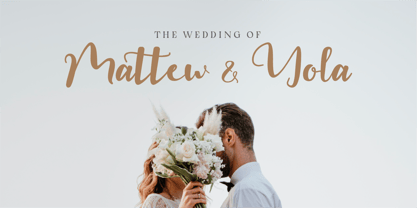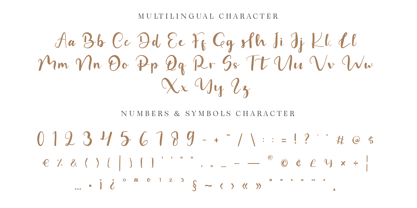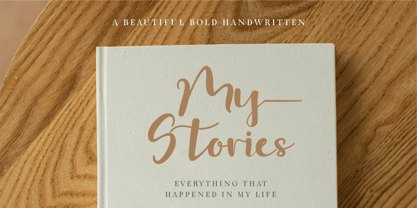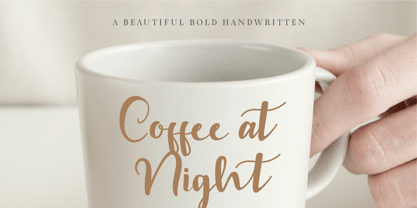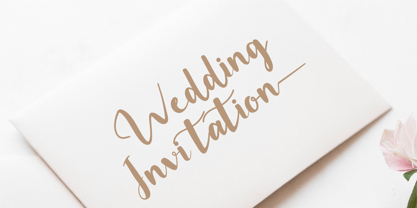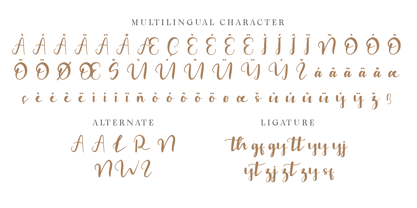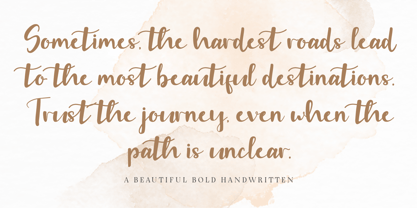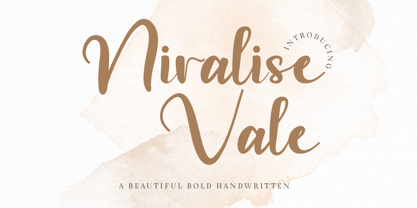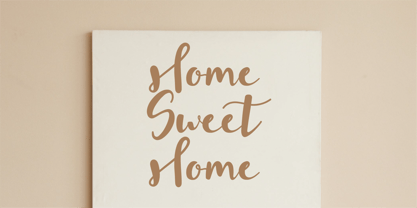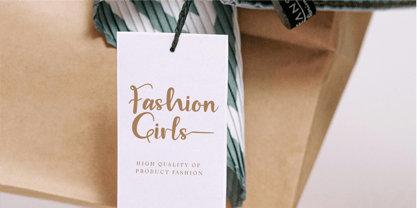
CF Niralise Vale
by Indotype
The CF Niralise Vale Font Family was designed by Gilang Mei Nugraha, Frederik Aristaputra and published by Indotype. CF Niralise Vale contains 2 styles and family package options.
Niralise Vale is a stunning script font that embodies a sense of elegance and bold creativity. Its design exudes a whimsical charm, perfect for those seeking to add a touch of sophistication to their projects. The font seamlessly blends graceful curves with bold, confident strokes, capturing the essence of hand-lettered artistry. With its flowing letterforms and balanced proportions, Niralise Vale feels both contemporary and timeless. The playful yet refined nature of the font makes it ideal for wedding invitations, branding, social media posts, and other design endeavors that require a distinctive personal touch. Whether you're looking to evoke romance, creativity, or luxury, Niralise Vale rises to the occasion.
• Standard Character A-Z, a-z, 0-9, Punctuation & symbols
• Regular and Italic
• Multilingual Support
Designers: Gilang Mei Nugraha, Frederik Aristaputra
Publisher: Indotype
Foundry: Indotype